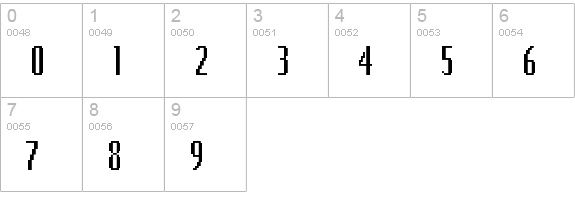
Bitmap Regular Font Details
Bitmap Regular is the standard, neutral variant in the Bitmap typeface family \xE2\x80\x94 well suited to general body text, paragraphs, and standard typographic work.
Bitmap Regular is a versatile and modern font that exudes a sense of creativity and innovation. With its clean lines and geometric shapes, this font is perfect for a wide range of design projects, from branding to web design. Its sleek and stylish appearance makes it ideal for creating eye-catching headlines, logos, and posters. What sets Bitmap Regular apart is not only its aesthetic appeal but also its flexibility. Whether you're looking for a font that is bold and impactful or subtle and understated, Bitmap Regular has you covered. Its versatility allows you to use it in a variety of contexts, making it a valuable addition to any designer's toolkit. The best part? Bitmap Regular is available for free download at FontsMarket.com. This means you can start using this fantastic font in your projects right away, without having to worry about breaking the bank. Don't miss out on the opportunity to add Bitmap Regular to your font collection today!